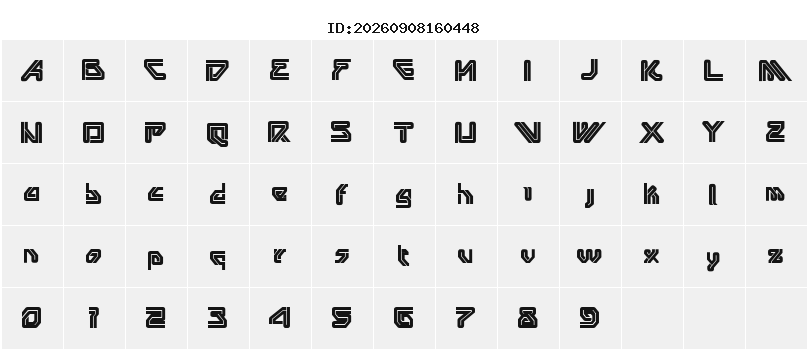
venolithic Preview
• Font Name: venolithic
• Font ID: 1.000;PYRS;venolithic
• Full Font Name: venolithic
• PostScript Name: venolithic
• Character Count: 94
• Manufacturer: sevent imperium
About venolithic.ttf
venolithic.ttf is a modern, elegant sans-serif font designed for ultimate readability and visual harmony. Perfect for branding, headlines, web design, and print materials.